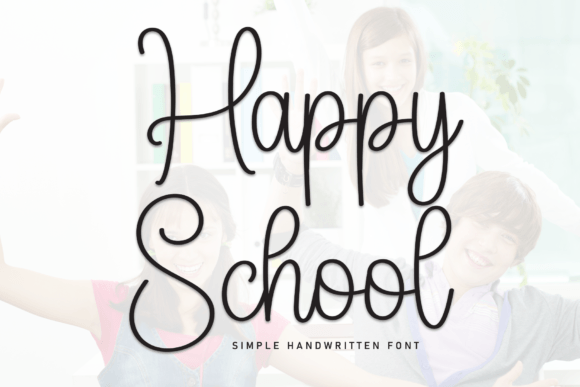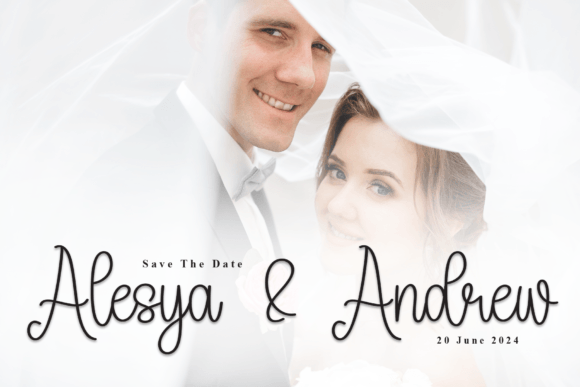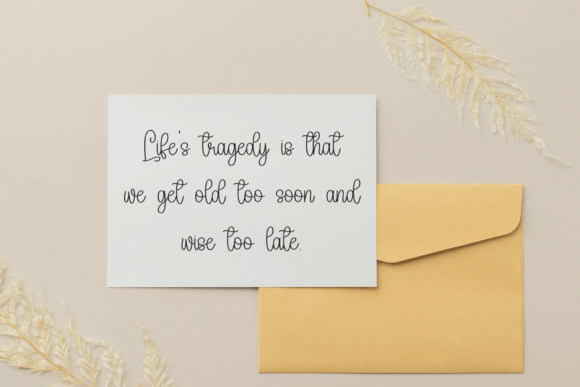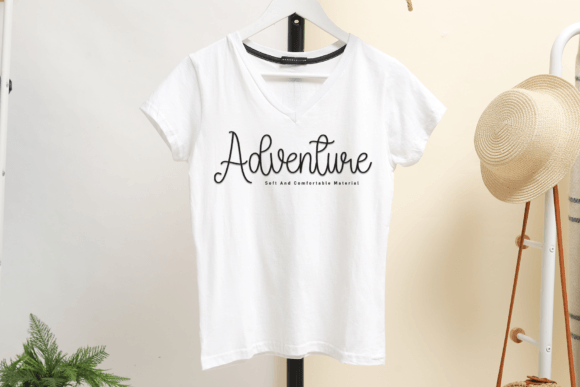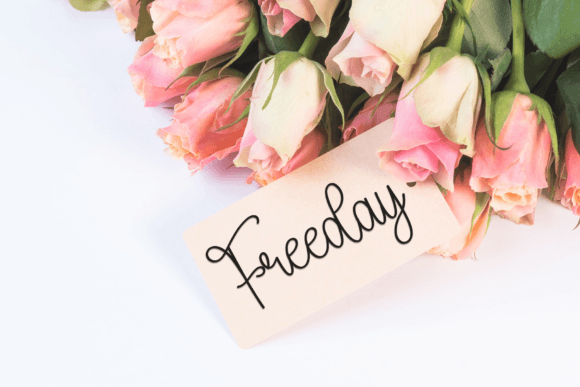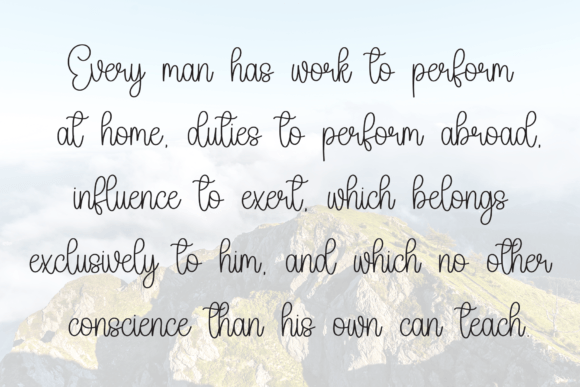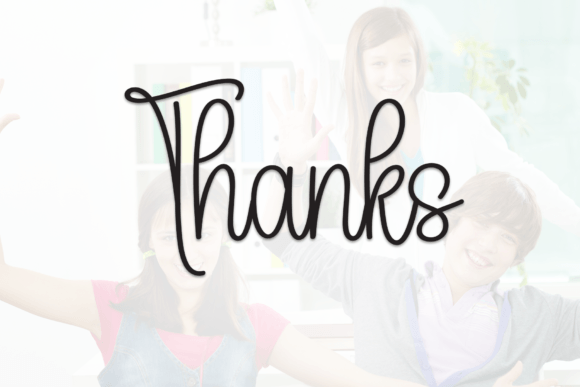
Unlocking the Joy of Design with Happy School Font
Do you remember that moment when a simple font choice transformed your entire design project? For many creatives, it’s a feeling of excitement and satisfaction that comes with discovering the perfect typography. This is exactly what the Happy School Font offers – a sweet and friendly handwritten font that instantly elevates any design.
Happy School Font is a natural and unique addition to any design, making it incredibly versatile. Whether you’re working on a children’s book, a blog post, or a social media campaign, this font is sure to bring a smile to your audience’s faces. Its friendly demeanor makes it a valuable asset for designers looking to add a touch of warmth and approachability to their work.
Happy School Font Key Features
- Font Family: Happy School Font is a unique, hand-drawn font designed to evoke a sense of happiness and playfulness in educational settings.
- Unique Characteristics: The font features a cheerful, childlike aesthetic with exaggerated letterforms and playful flourishes, making it an ideal choice for educational materials, children’s books, and other projects requiring a lighthearted tone.
- Character Count: Happy School Font contains over 250 characters, including uppercase and lowercase letters, numbers, punctuation marks, and special characters.
Happy School Font Review
As a designer, I’ve had the chance to play around with the “Happy School Font” and I have mixed feelings about it. Here are my thoughts:
- The font is incredibly playful and fun, perfect for kids’ materials or educational content.
- The bold and italic styles are well-designed and add a lot of character to the font.
- The font is highly legible, even at smaller sizes, making it suitable for body text.
- The font feels a bit too cartoonish for more formal or professional content.
- The font doesn’t have a lot of variations in terms of weights and styles, which can limit its versatility.
- The font’s aesthetic may not appeal to everyone, especially those who prefer more minimalist or modern designs.
Overall, the “Happy School Font” is a fun and playful font that’s perfect for certain types of projects. However, it may not be the best choice for more formal or professional content. If you’re looking for a font that’s sure to bring a smile to your users’ faces, this might be a good option. But if you need something more versatile or sophisticated, you might want to look elsewhere.
The Happy School Font is ideal for educational materials, children’s products, and playful designs.
Use it for:
– School projects and presentations
– Children’s book illustrations and text
– Educational posters and flyers
– Playful branding and marketing materials